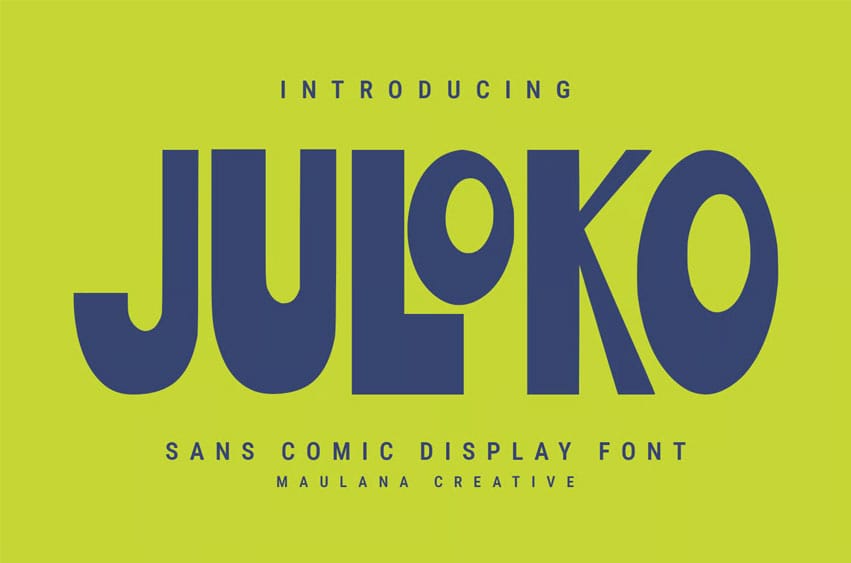
Juloko Font is a sans serif display font characterized by its bold strokes and playful characters, featuring a few ligatures for an extra creative touch. It supports over 100 languages, making it versatile for various design projects. Juloko Font is ideal for logo design, social media graphics, movie titles, book covers, short texts, and even longer text passages.
Additionally, it pairs well with both sans serif and serif fonts, making it a great option for secondary text. Create stunning work with Juloko Font!